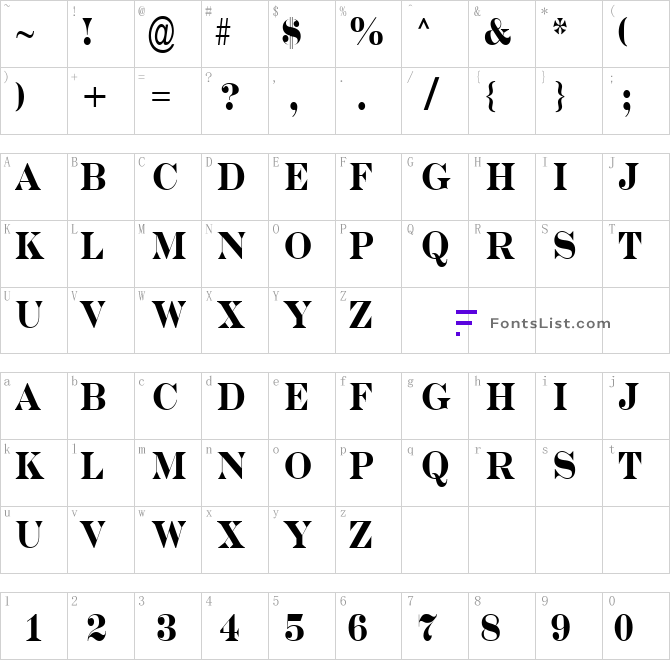
- Font Name:a_SeriferNr
a_SeriferNr-Bold.ttf is a very beautiful artistic font, a_SeriferNr-Bold.ttf is widely used in the design and printing of various books and pictures,a_SeriferNr-Bold.ttf has a strong visual impact,a_SeriferNr-Bold.ttf is a commonly used font in newspapers, magazines and books, and is used in posters, e-commerce Poster design, store design, logo design, font design and other fields.a_SeriferNr-Bold.